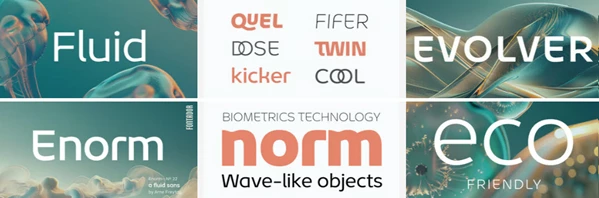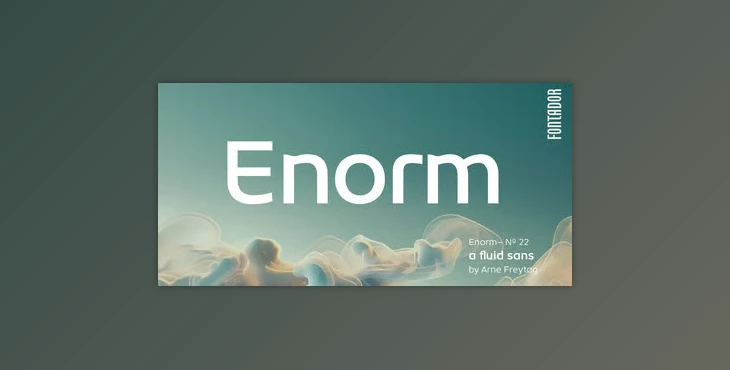
The Enorm Font Family is a striking addition to graphic design collections as it is an innovative neo-grotesque typeface. It combines modern and classic elements effortlessly. It can serve as a strong foundation for typography since it improves brand communication effortlessly with a clear and futuristic look. Because of its generous x-height, the typeface is friendly and readable even in smaller sizes, making it perfect for both print and digital content.
With fully developed OpenType features, Enorm offers ligatures, contextual alternates, and stylistic sets, which can be used by designers in multiple ways. Due to its thorough coverage of Latin languages, it can be used in different design scenarios. As a modern geometric typeface, Enorm is ideal for text and supports logotype, branding, editorial, and corporate identity design. It relates to the Object as a less complex counterpart and broadens the choice of design options. Enorm can be used in print and screen media, offering functionality and elegance for contemporary communication.